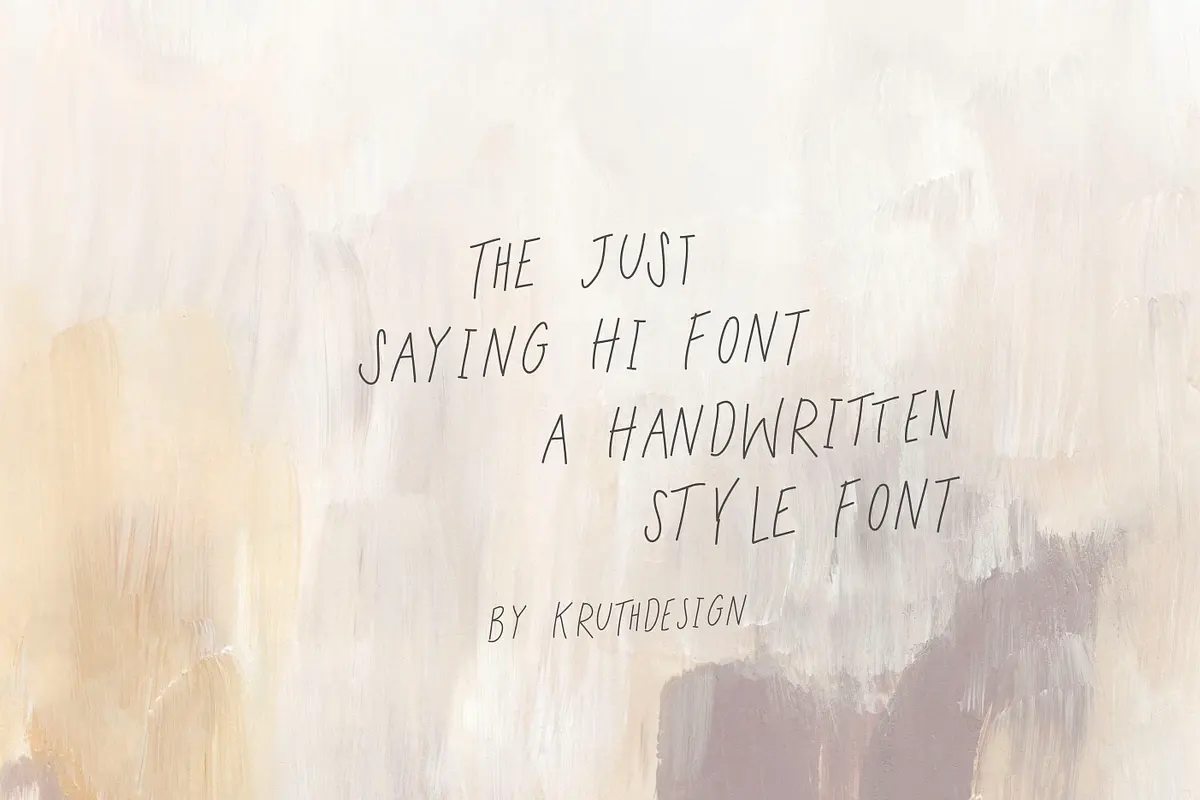
The Just Saying Hi Font / Handwritten Free Download is the perfect choice for adding a personal and friendly touch to your designs. With its casual handwritten style, this font captures the warmth and spontaneity of human expression. Ideal for greeting cards, personal blogs, invitations, and more, it brings a welcoming feel to any project. Please note that to use this font for commercial purposes, you will need to purchase a license. For testing and personal use, you can easily download the Just Saying Hi Font / Handwritten Free Download. Whether you’re designing for fun or professional projects, this charming handwritten font will give your designs a unique and heartfelt appearance. Don’t miss out on the opportunity to download the Just Saying Hi Font / Handwritten Free Download and add a fresh, inviting look to your creative work.